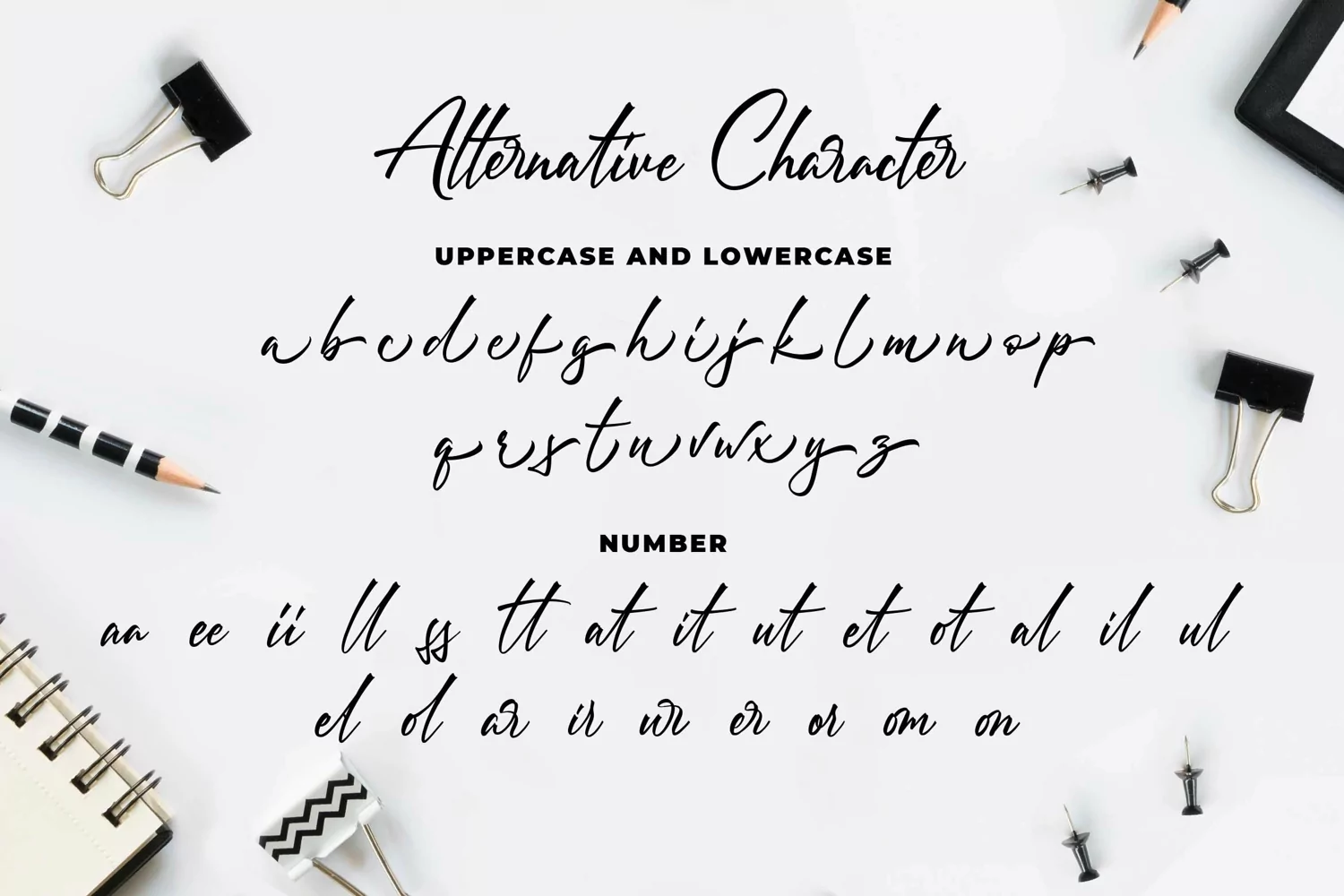
Introducing of our new product the name is Berlliont a Handwitting Font. Berlliont inspired by modern calligraphy style this font is a fun theme very good for display, wedding, valentine theme, logotype and etc